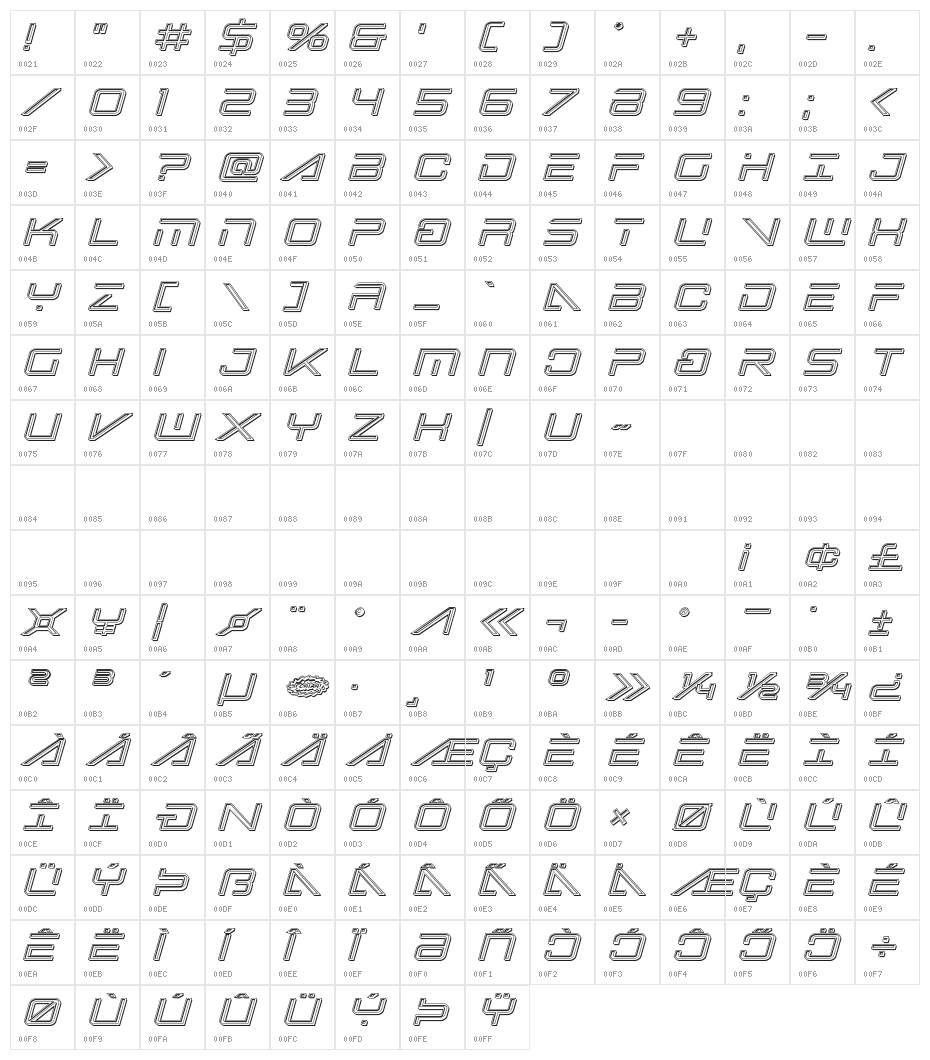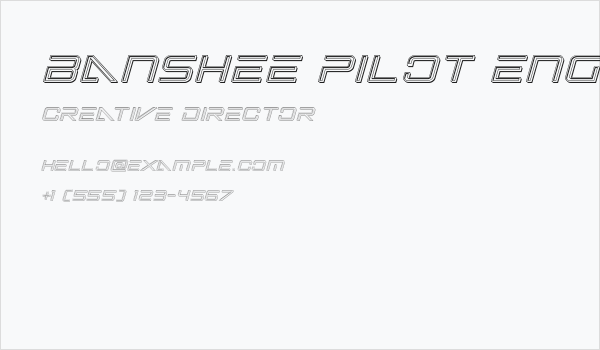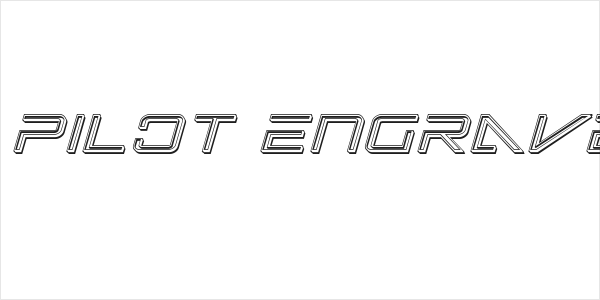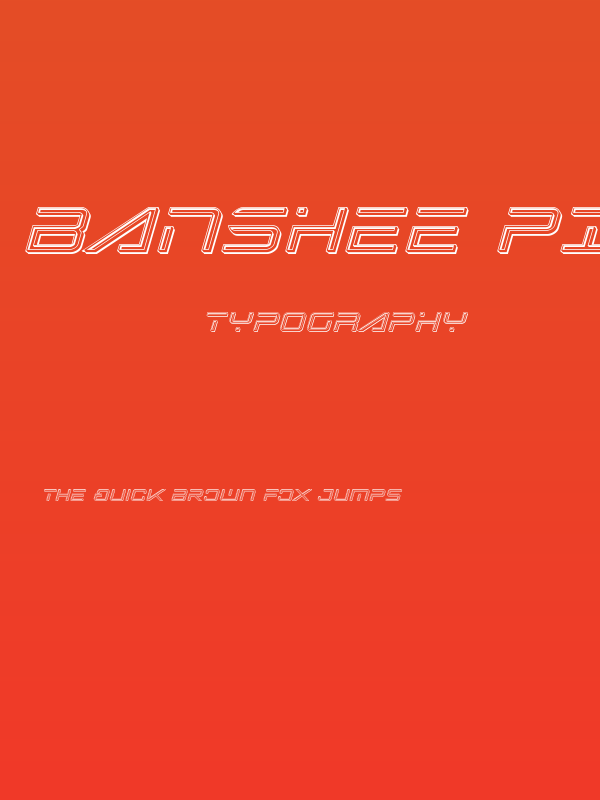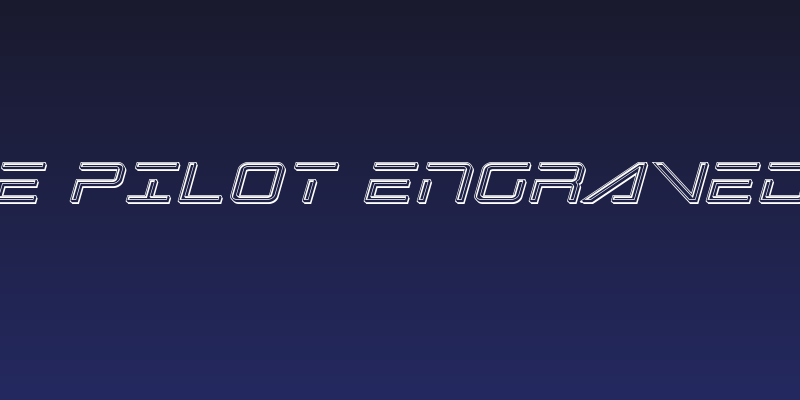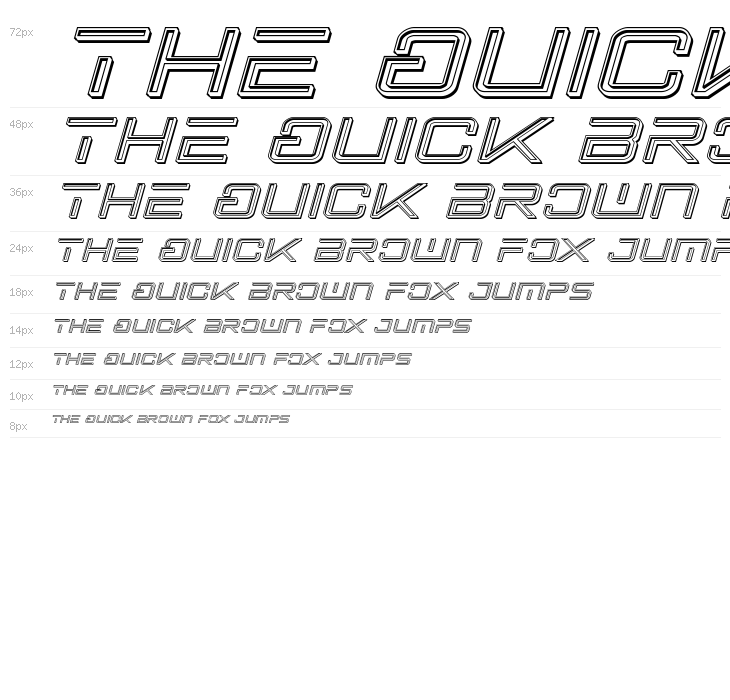
Banshee Pilot Engraved Italic Font
Banshee Pilot Engraved Italic Description
This font features a futuristic and dynamic design with an engraved, italicized style. The characters are outlined with a double-line effect, giving them a three-dimensional appearance. The angular and geometric shapes of the letters convey a sense of speed and modernity, making it ideal for projects that require a cutting-edge look. The uppercase and lowercase letters maintain a consistent style, while the numbers and special characters complement the overall design. The font's unique structure makes it stand out, suitable for attention-grabbing headlines or logos.
Proposed ProjectsIdeal for sci-fi themed designs, technology branding, video game titles, and modern advertising.